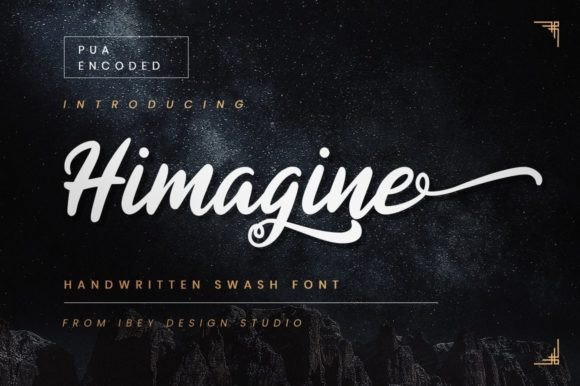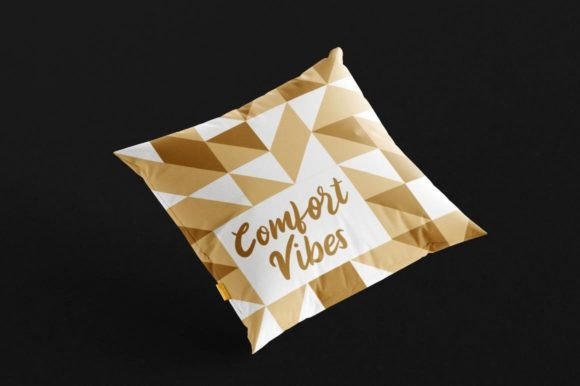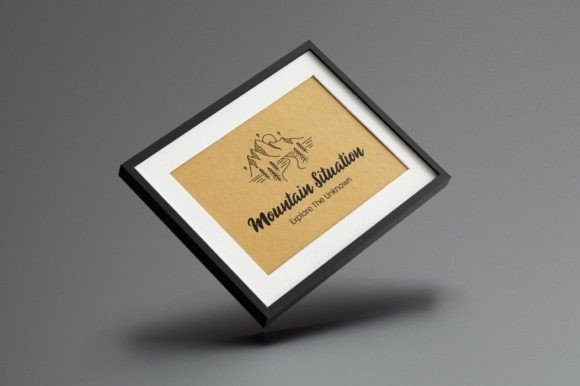
About Himagine Font
“Himagine” is a lovely handwritten font that showcases charming and playful characters, creating the impression that they dance along the baseline. This font is a perfect addition to your most creative ideas, elevating them and making them stand out with its delightful and whimsical touch.
The charm of “Himagine” lies in its handwritten style, adding a personal and warm feel to your designs. The playful characters contribute to an overall aesthetic that is both inviting and creative.
The inclusion of PUA encoding in “Himagine” allows for easy access to all glyphs and swashes. This feature enhances the font’s versatility, providing you with the creative freedom to experiment with different letter combinations and design elements.
In summary, “Himagine” is more than just a font; it’s a design asset crafted to bring a lovely and playful vibe to your projects. Whether you’re working on invitations, branding, or other creative endeavors, let this handwritten font be the key to making your designs stand out with charm and whimsy.